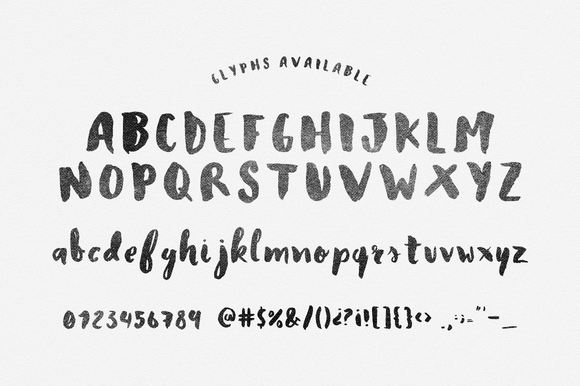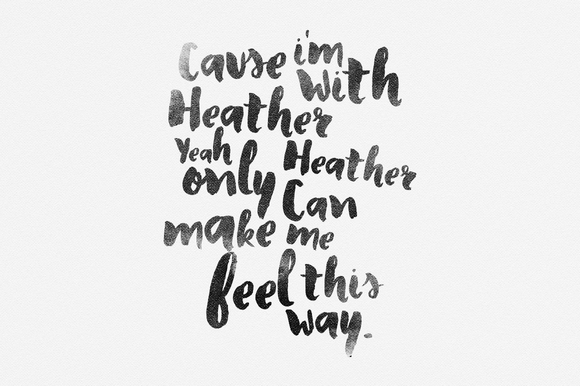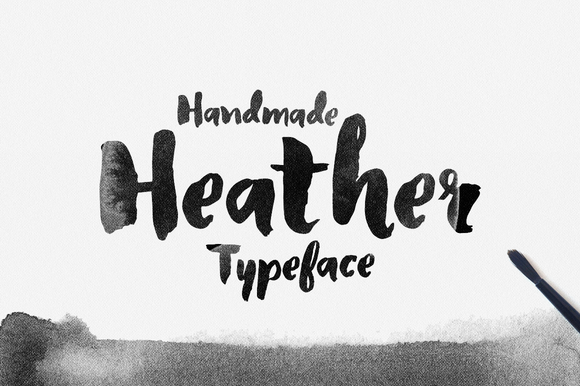
Heather Typeface
Heather is my third handmade font. It was made with a pen brush and some ink. Please feel free to enjoy this amazing font with a tons of glyphs made just four you who wants something natural, free, and handmade.